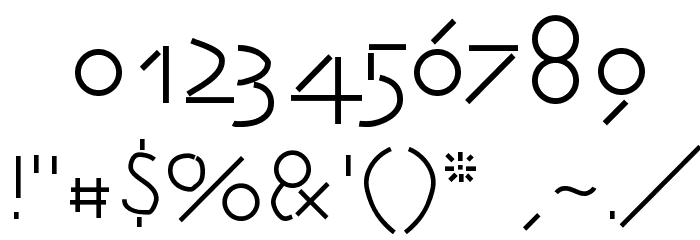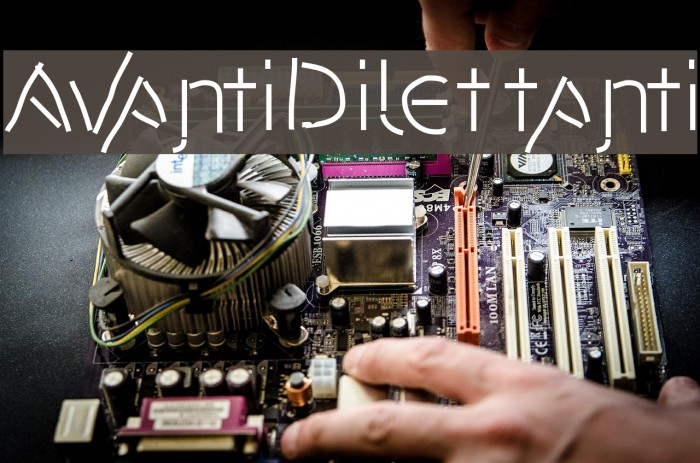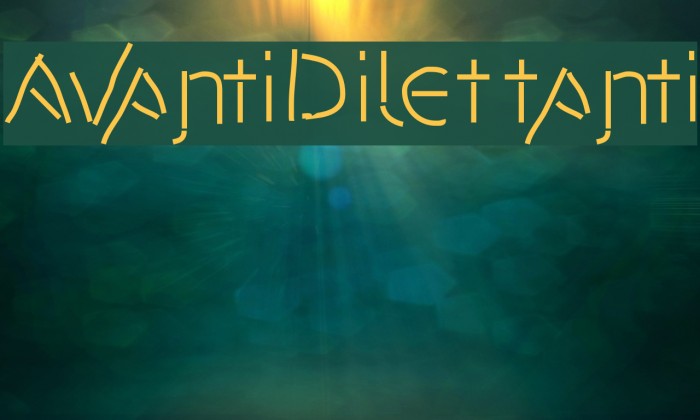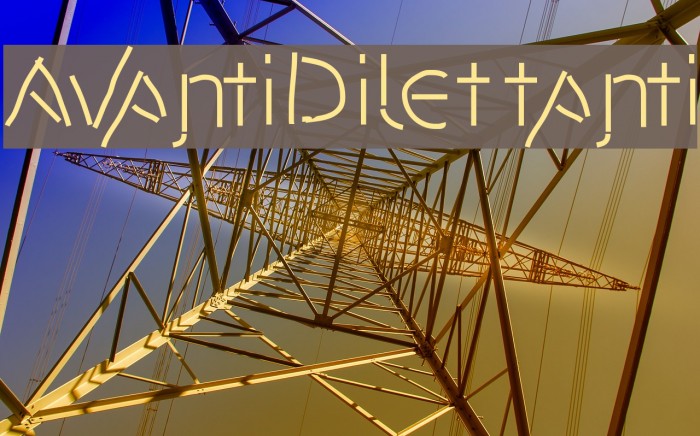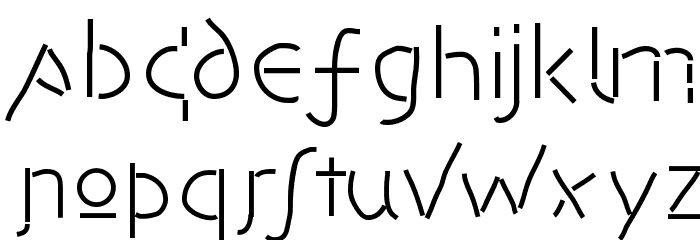
AvantiDilettanti Font
This font features a unique and modern design with a geometric and slightly futuristic aesthetic. The characters are composed of clean lines and sharp angles, giving it a distinctive and edgy look. The uppercase letters have a consistent height, while the lowercase letters maintain a similar style with a slightly more fluid form. The numerals are bold and clear, ensuring readability. Special characters are designed to complement the overall style, maintaining the geometric theme. This font is ideal for projects that require a contemporary and innovative touch.
A modern, geometric font with sharp angles and clean lines.
• Proposed Projects: Ideal for branding, logos, posters, and digital media that require a modern and edgy appearance.
• Use Case: Headlines, Logos